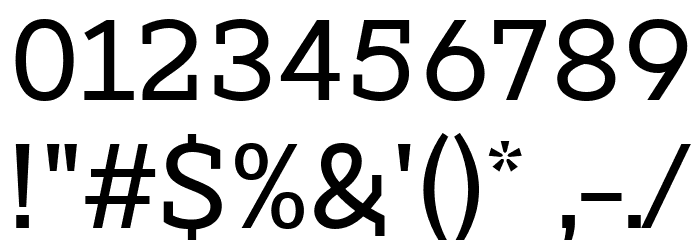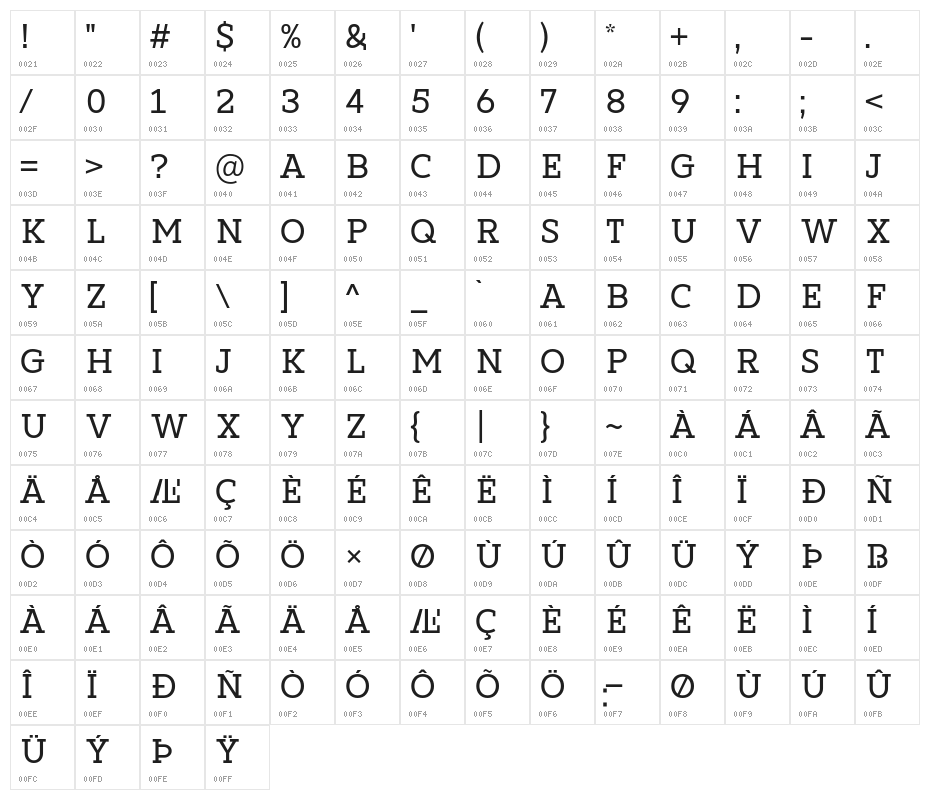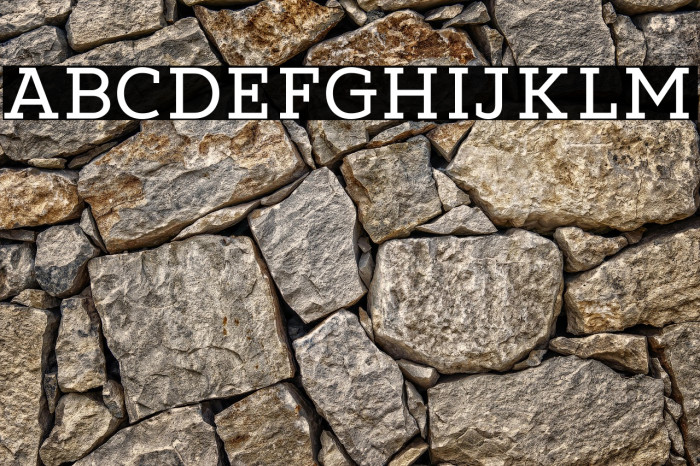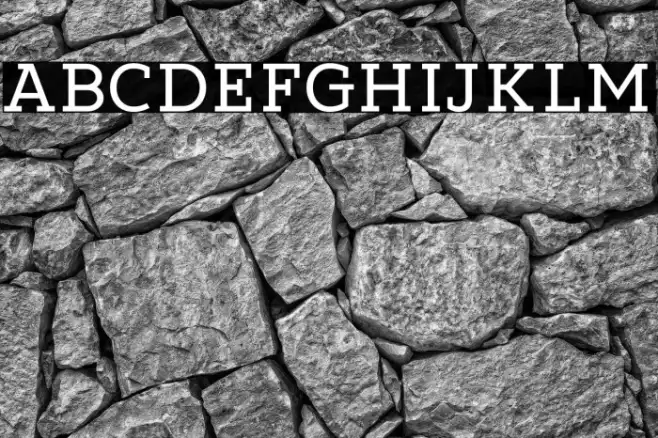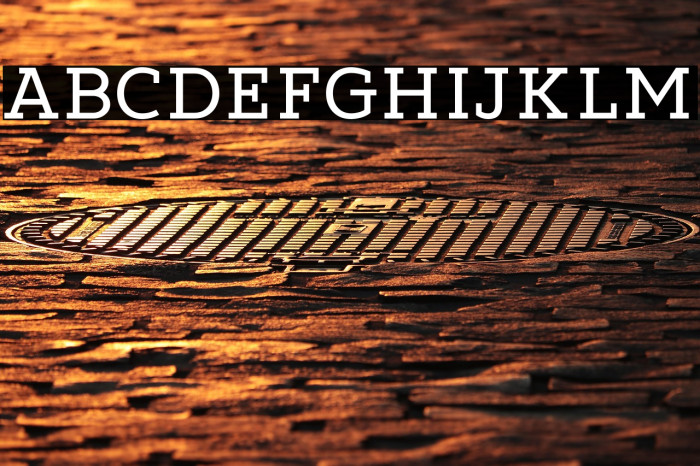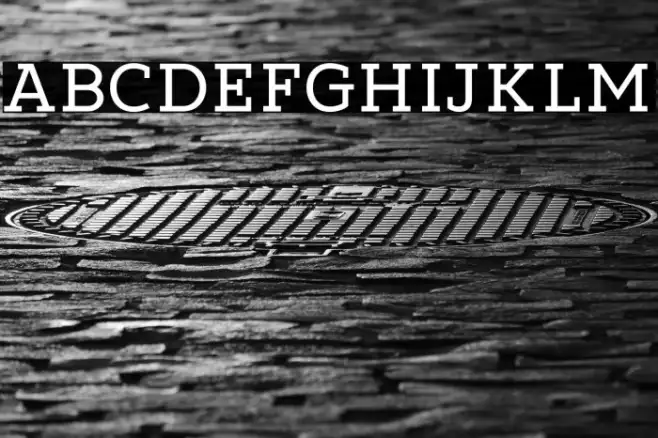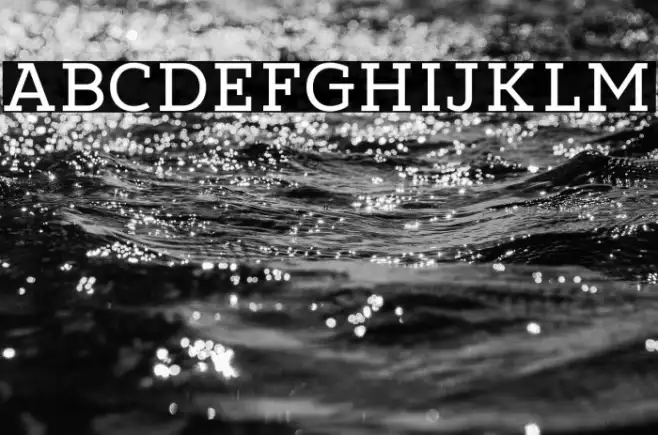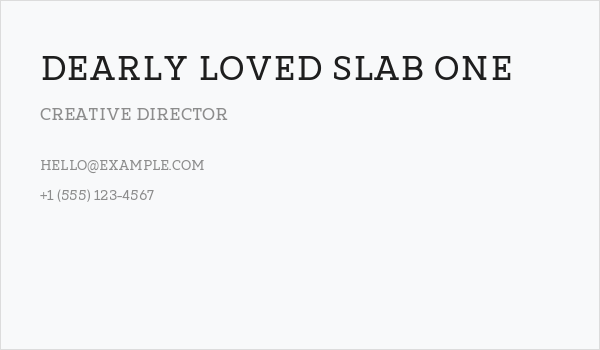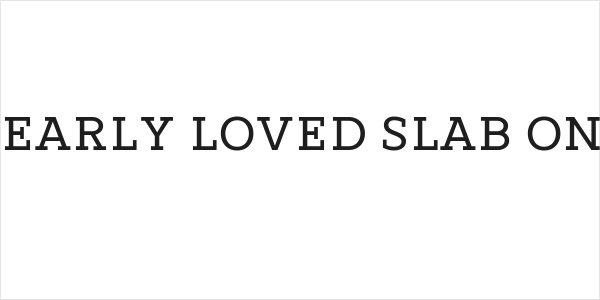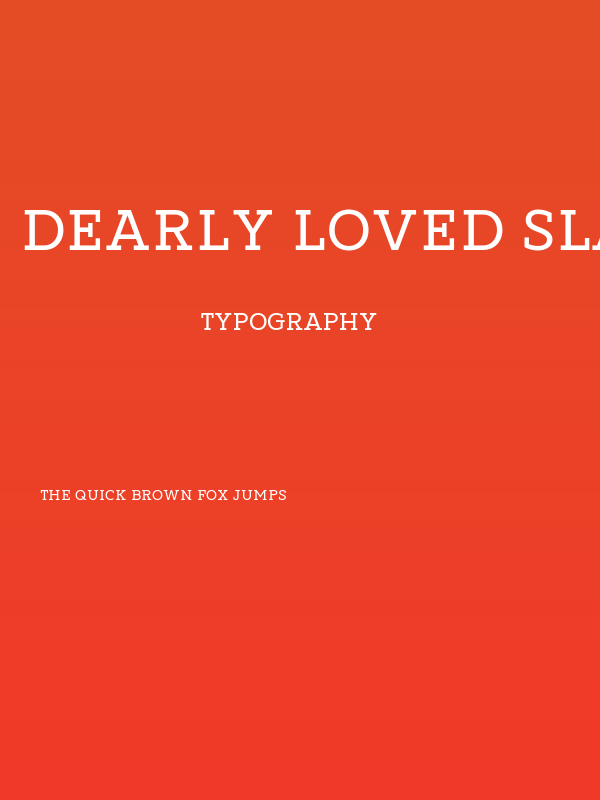
Dearly loved Slab One Font
Dearly loved Slab One Description
This typeface is a robust slab serif with a strong presence, characterized by thick, block-like serifs that give it a bold and authoritative look. The letters are evenly spaced, providing a balanced and structured appearance. The uppercase and lowercase letters maintain a consistent weight, contributing to its uniformity. The numerals are clear and legible, matching the boldness of the alphabet. Special characters are designed with the same attention to detail, ensuring they integrate seamlessly with the rest of the font. This font's design is both modern and classic, making it versatile for various applications.